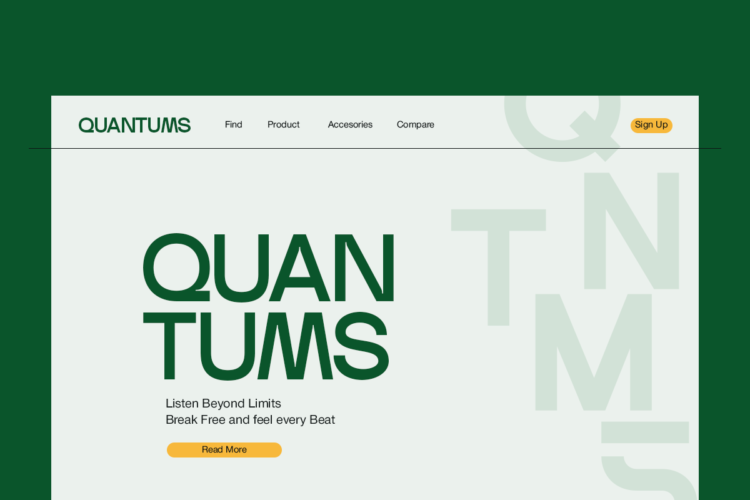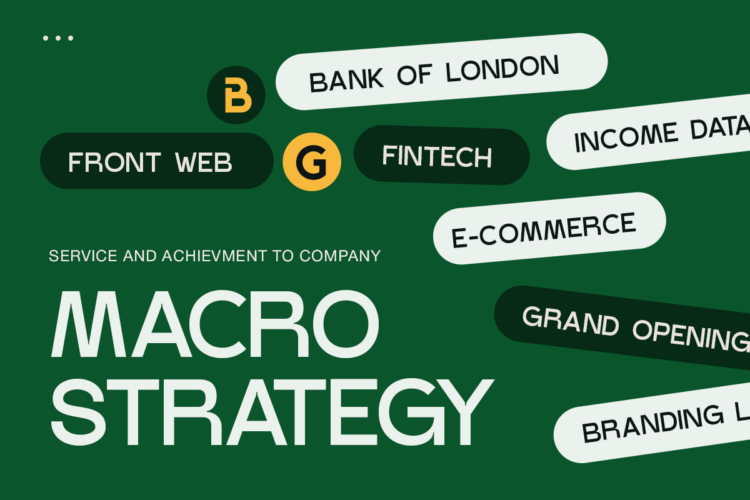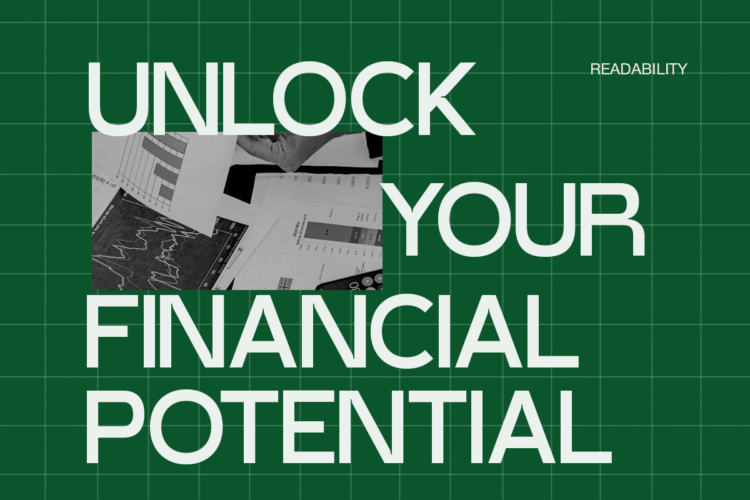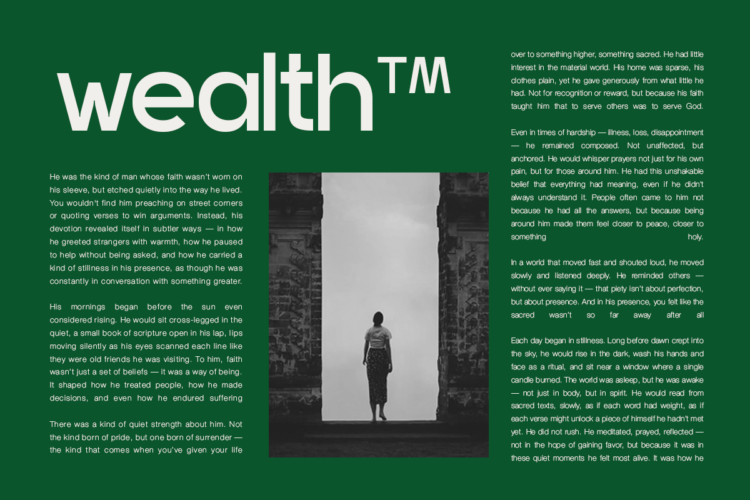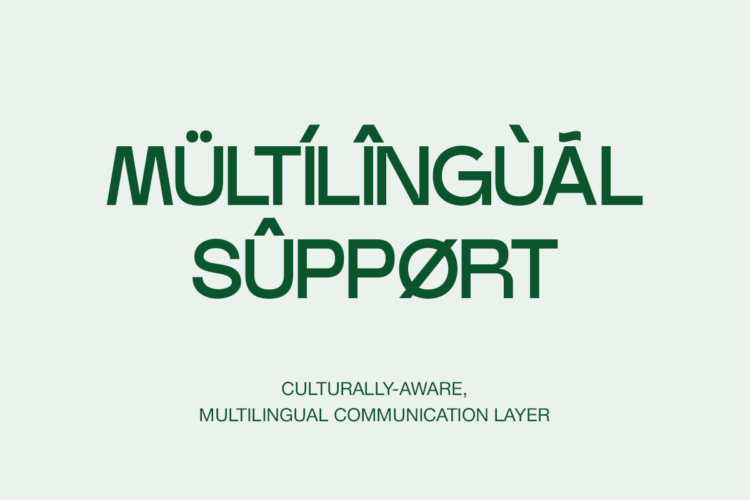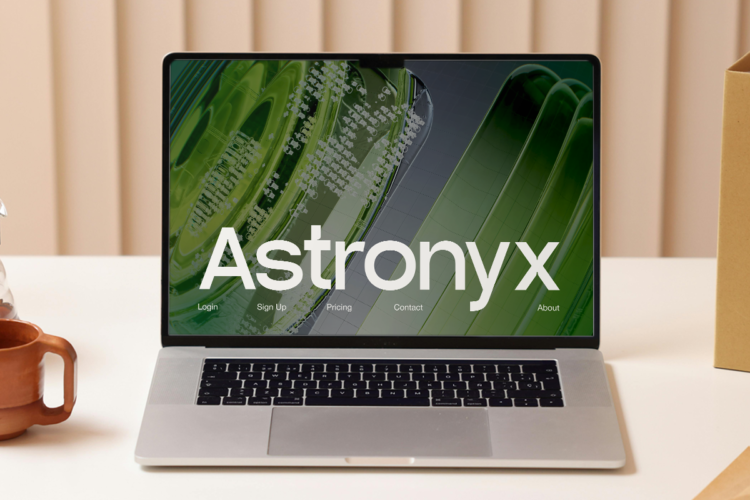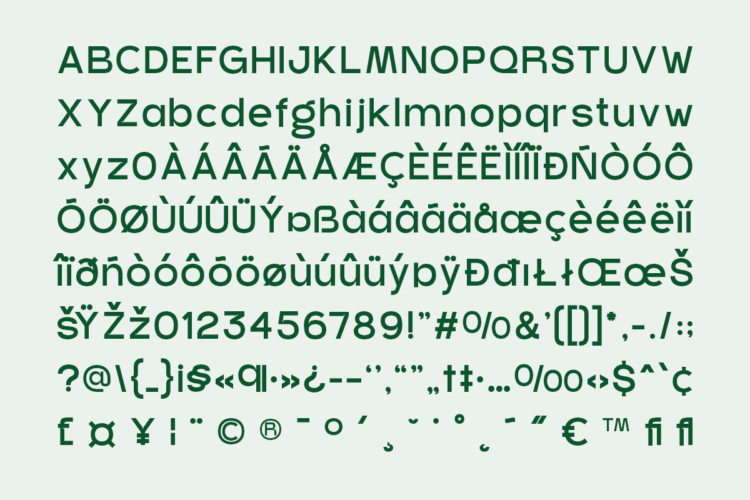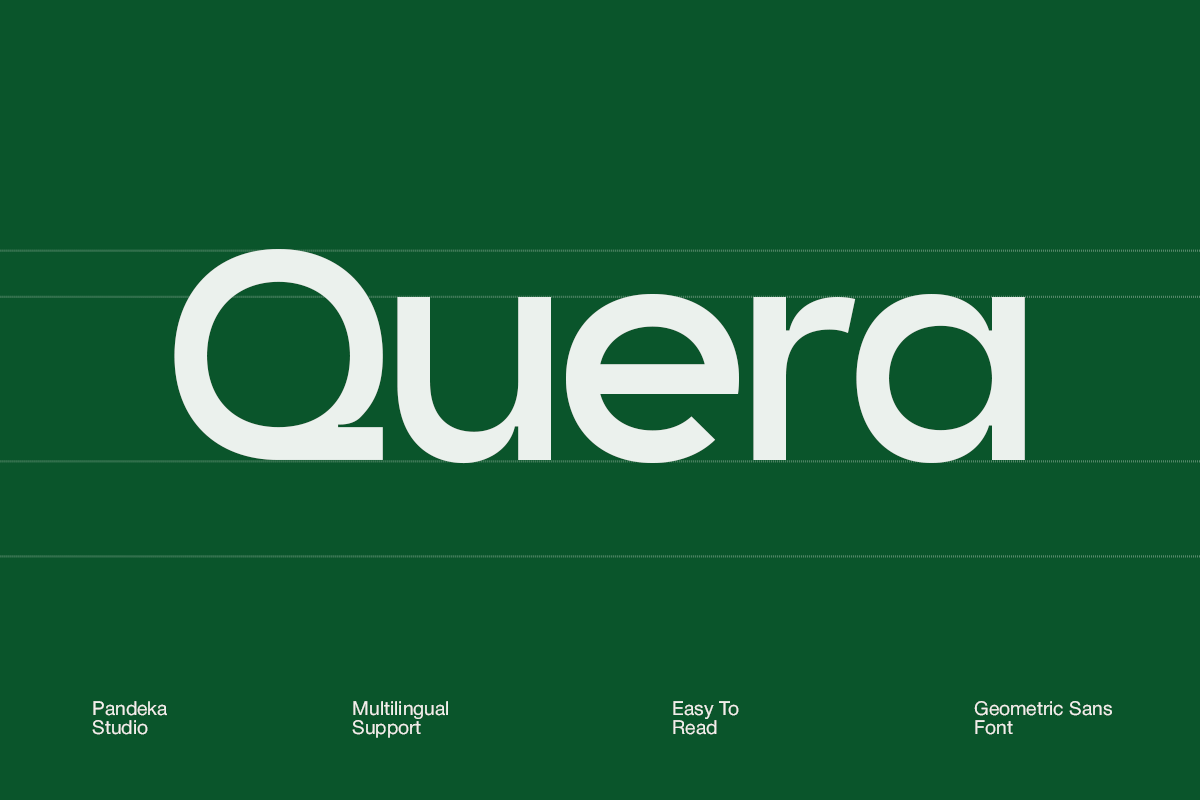
Quera Regular
Quera is a modern geometric sans-serif font designed for professionalism, clarity, and corporate identity. With its clean lines, balanced proportions, and contemporary aesthetics, Quera is ideal for branding, corporate presentations, editorial layouts, websites, and digital platforms that demand a polished and trustworthy look.
Although it comes in just one Regular style, Quera delivers strong versatility and readability across titles, body text, and digital interfaces. Featuring uppercase and lowercase letters, numerals, punctuation, symbols, and multilingual support, Quera ensures seamless adaptability for global communication while maintaining a sleek and modern tone.
• 1 Style: Regular
Quera – Geometric Corporate Font